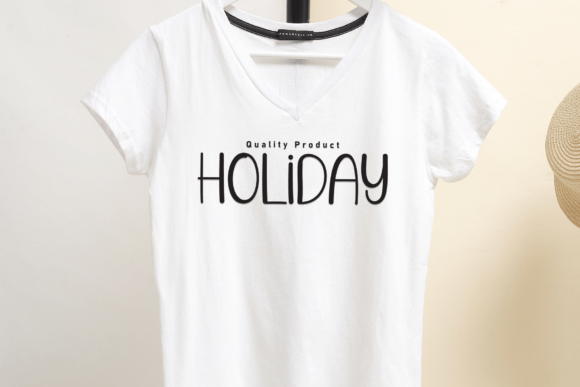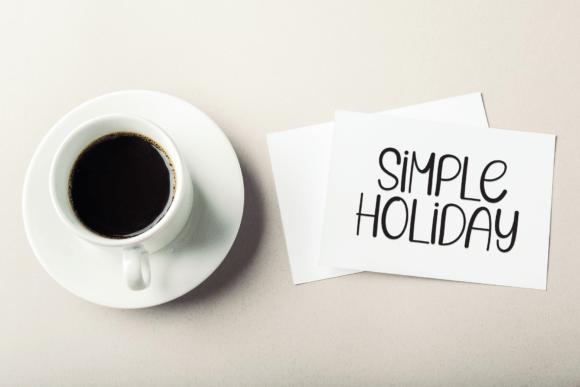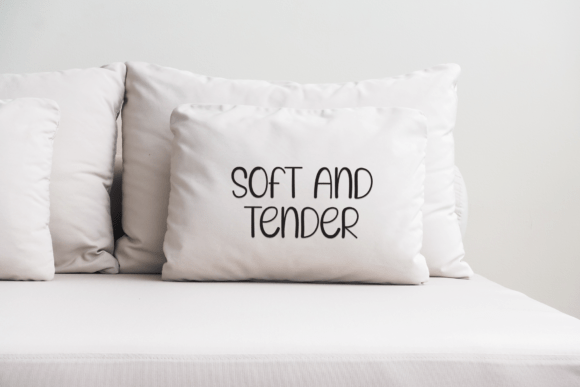
Introduction to Cute Sunday Font
As I sit down to brainstorm ideas for my next creative project, I often find myself reaching for a font that’s both simple and inviting. There’s something about the perfect combination of clean lines and subtle rounded edges that instantly sparks inspiration. That’s exactly what I’ve been searching for in the Cute Sunday Font, a display font that has been making waves in the design community with its modern, handwritten vibe.
With its crisp structure and versatile style, the Cute Sunday Font is the perfect design resource for any creative project. Whether you’re looking to add a touch of warmth to your branding, create eye-catching headlines, or simply enhance your digital content, this font is sure to deliver. And the best part? It’s available for free download, making it a valuable addition to any designer’s toolkit.
But what sets the Cute Sunday Font apart from other high-quality fonts is its ability to work seamlessly with transparent backgrounds, allowing you to create visually stunning designs that truly pop. So why settle for a bland, generic font when you can add a touch of personality to your project with the Cute Sunday Font?
Key Features of Cute Sunday Font
- Unique, hand-drawn design perfect for creative projects and personal use.
- Features a transparent background, allowing for easy layering and customization in graphic design projects.
- High-resolution font files ensure crisp and clear text output, even at larger font sizes.
- Designed with a cute and playful aesthetic, ideal for children’s books, greeting cards, and other creative projects.
Honest Review: Cute Sunday Font
As a designer, I’m always on the lookout for high-quality design resources to elevate my creative projects. I recently stumbled upon the Cute Sunday Font, and I must say, it’s been a delightful addition to my design arsenal.
- ✨ The font’s playful and whimsical nature is perfect for projects that need a touch of warmth and personality.
- ✨ The transparent background makes it easy to use as a design element in various creative contexts.
- ⚠️ The font’s design may not be suitable for professional or formal projects, as it has a somewhat informal and childlike quality.
- ⚠️ Some users may find the font’s aesthetic to be too “cute” or overly simplistic, which may not appeal to everyone.
Overall, I’m impressed with the Cute Sunday Font’s versatility and charm. While it may not be the best fit for every project, it’s definitely a valuable resource to have in my design toolkit. I’d recommend it to designers who are looking for a high-quality, free font that can add a touch of personality to their creative projects.
Cute Sunday Font
The Cute Sunday Font is a free design resource perfect for creative projects that require a touch of whimsy and charm. This high-quality font features a transparent background, making it easy to overlay on any design element.
Tips for Getting the Most Out of Cute Sunday Font
Here are a few tips for getting the most out of the Cute Sunday Font:
- Use it to add a playful touch to your designs.
- Experiment with different font sizes and styles to create visual interest.
- Combine the Cute Sunday Font with other design elements to create a unique look.
The Cute Sunday Font is perfect for:
- Birthday invitations and party decorations. Alternatives to Cute Sunday Font